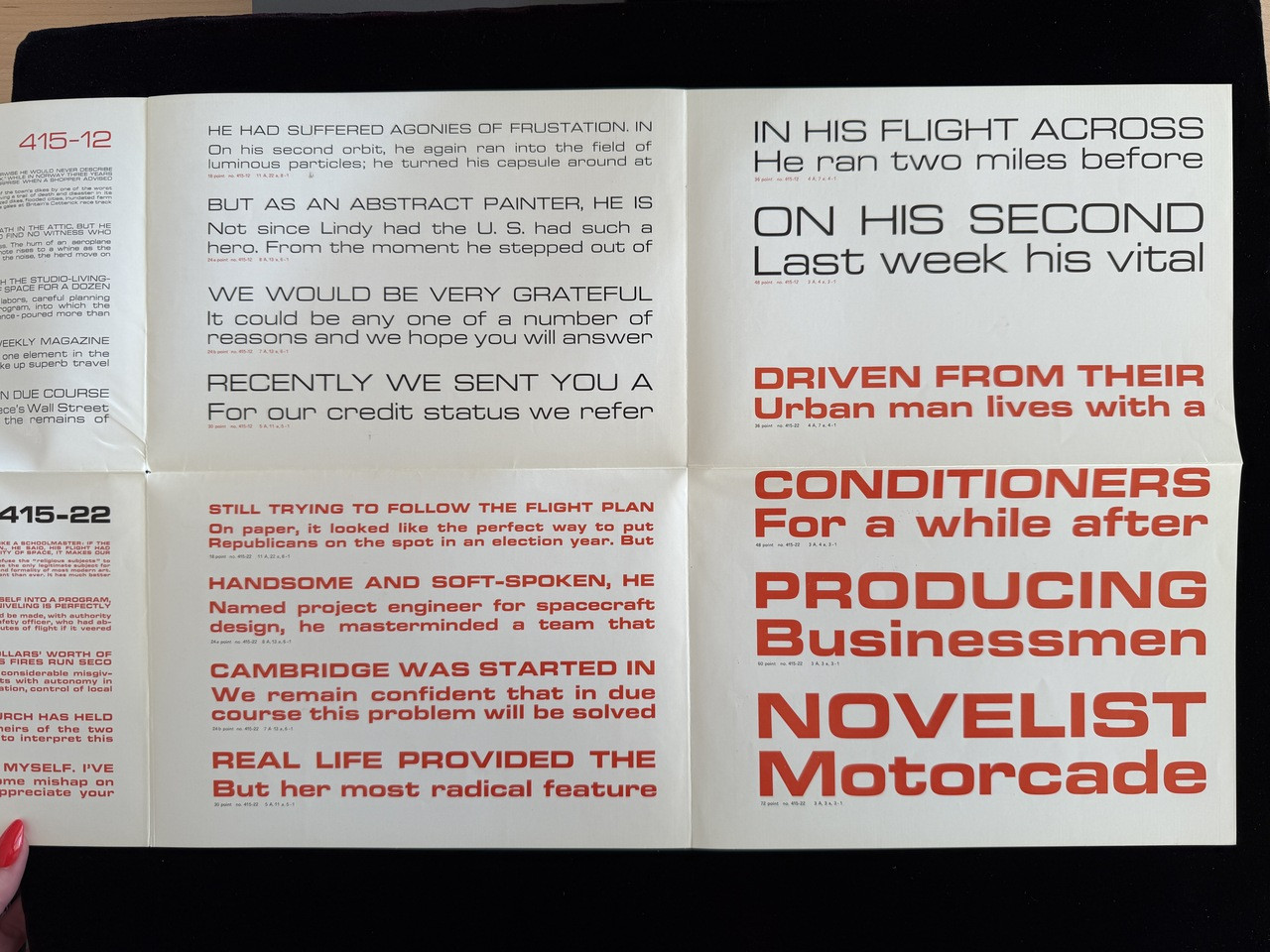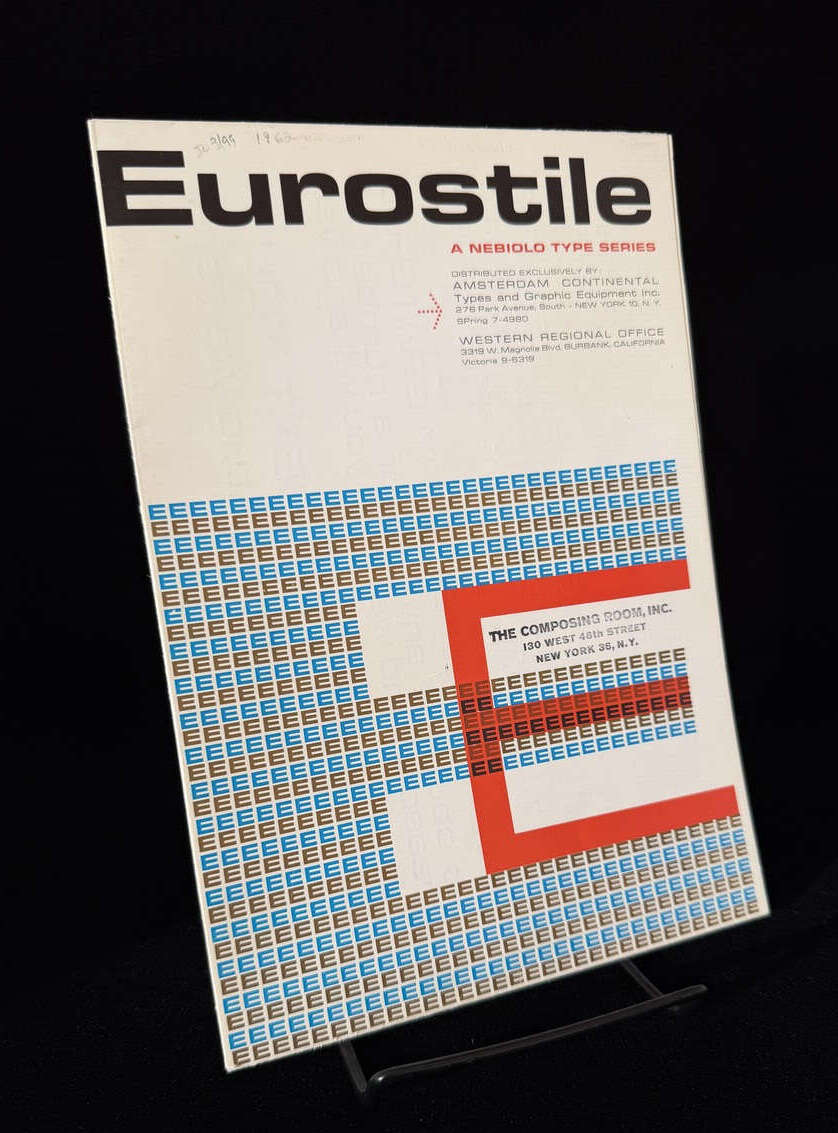
Aldo Novarese: Eurostile specimen, 1962
“Among the best-known typefaces of the past century, Eurostile (1962) is Novarese’s update and extension of Microgramma (1952), a caps-only quadrate sans serif for small titling designed by Alessandro Butti, possibly in collaboration with Novarese. Marketed as the formal expression of its times, Eurostyle’s squared O construction mirrors the architectural and industrial design trends of the day. This early specimen shows the first two styles of the face both of them developed on the basis of Microgramma’s extended (largo) style.” — Type by Aldo Novarese